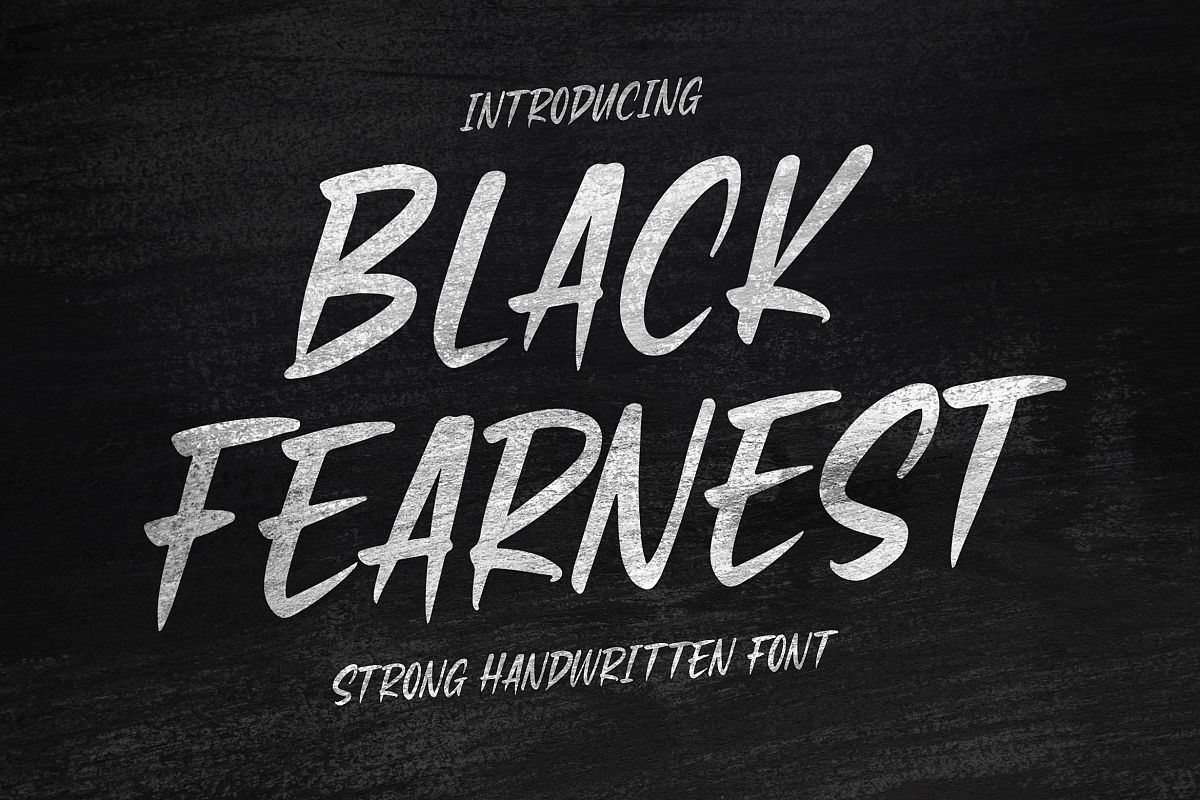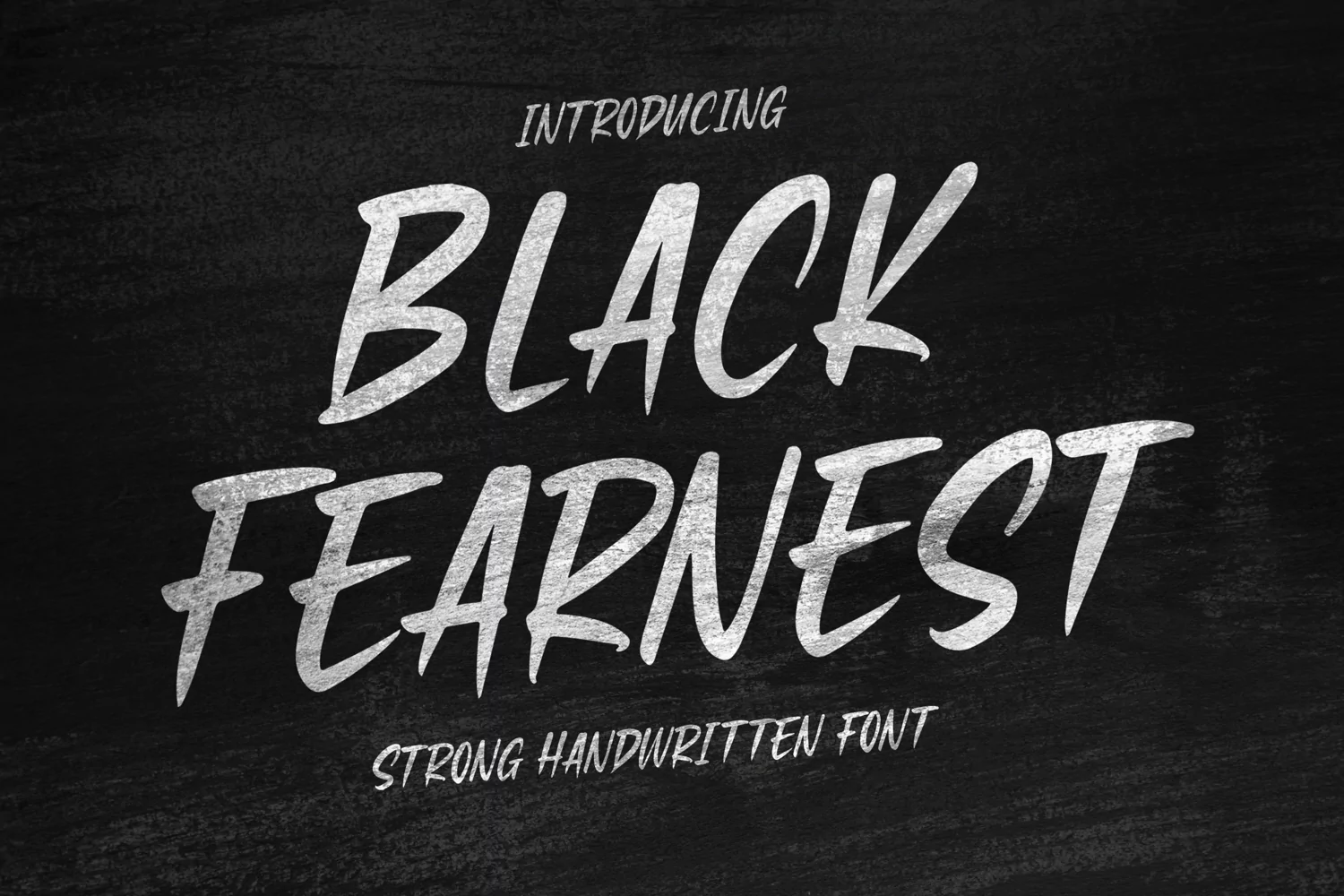
Introducing of our new product the name is Black Fearnest Strong Handwritten Font. Black Fearnest good urban theme, logotype, label, badge, headline, signature, packaging and any more.
MULTILINGUAL ACCENT :ØÆøæ¢ÐŒœÁĂÂÀÄĄÅÃǼĆČÇĈĊĎÉĔĚÊËĖÈĘĞĜĢĠĤÍĬÎÏİÌĮĨĴĶĹĽĻĿŃŇŅÑÓŎÔÖÒŐǾÕŔŘŖŚŠŞŜȘŤŢÚŬÛÜÙŰŲŮŨẂŴẄẀÝŶŸỲŹŽŻáăâäàąåãǽćčçĉċďéĕěêëėèęğĝģġĥíîïìįĩĵķĺľļŀńʼnňņñóŏôöòőǿõŕřŗśšşŝșťţŭûüűùųůũẃŵẅẁýŷÿỳźžż
FEATURES :- Uppercase